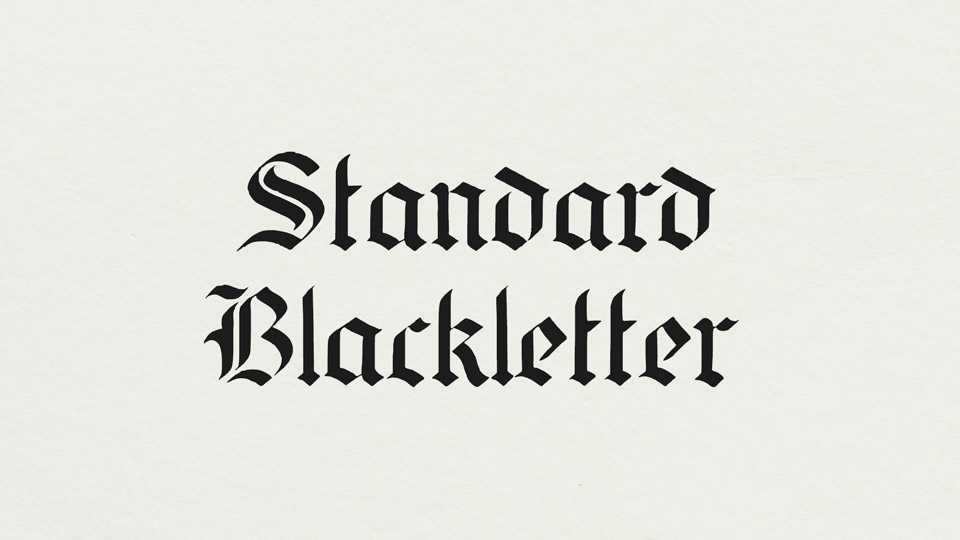
Download Standard Blackletter font, a typeface based on a pre-1924 The Zanerian manual of alphabets and engrossing, with a number of custom additions.
Designer: David Grigg